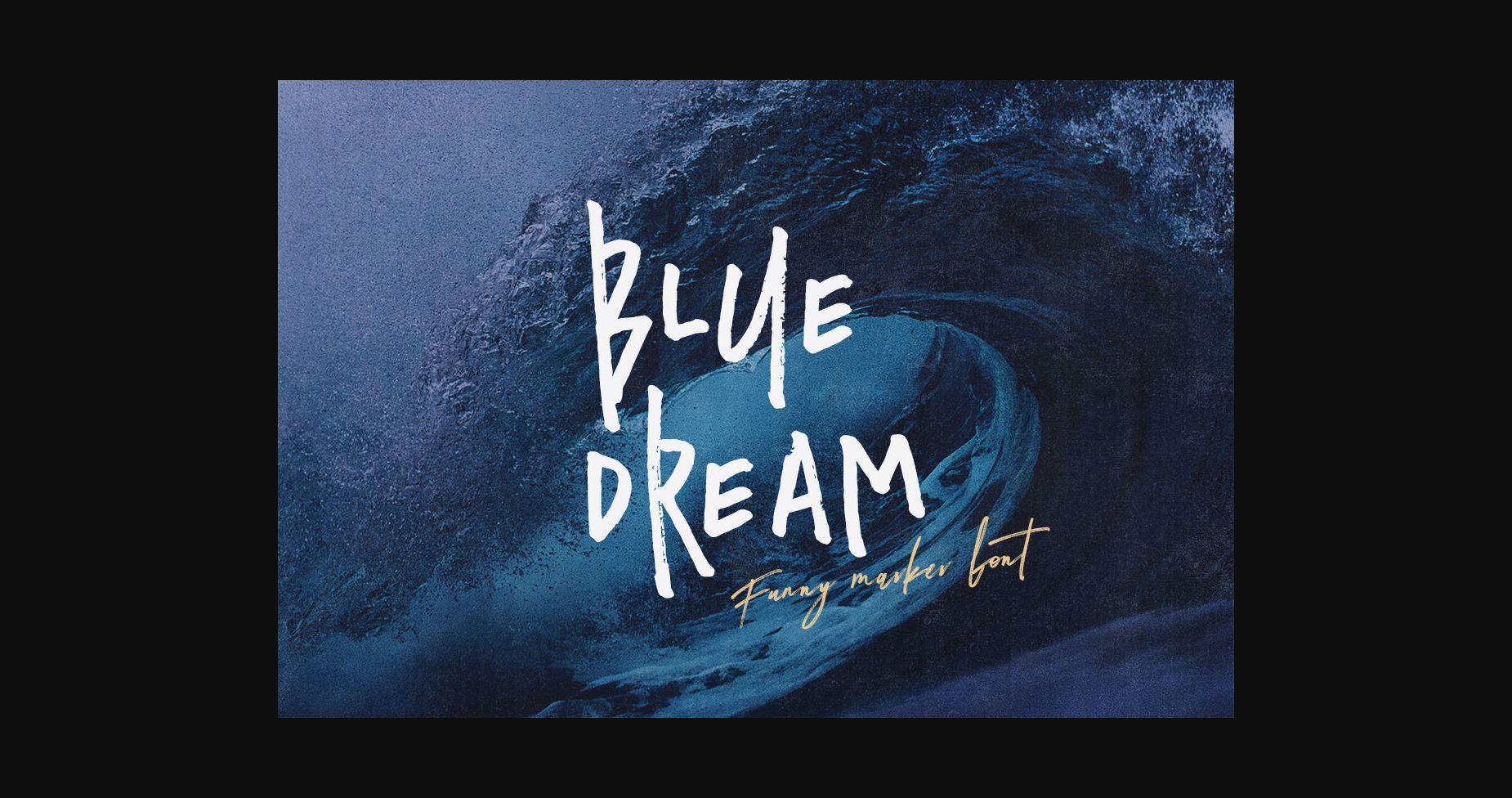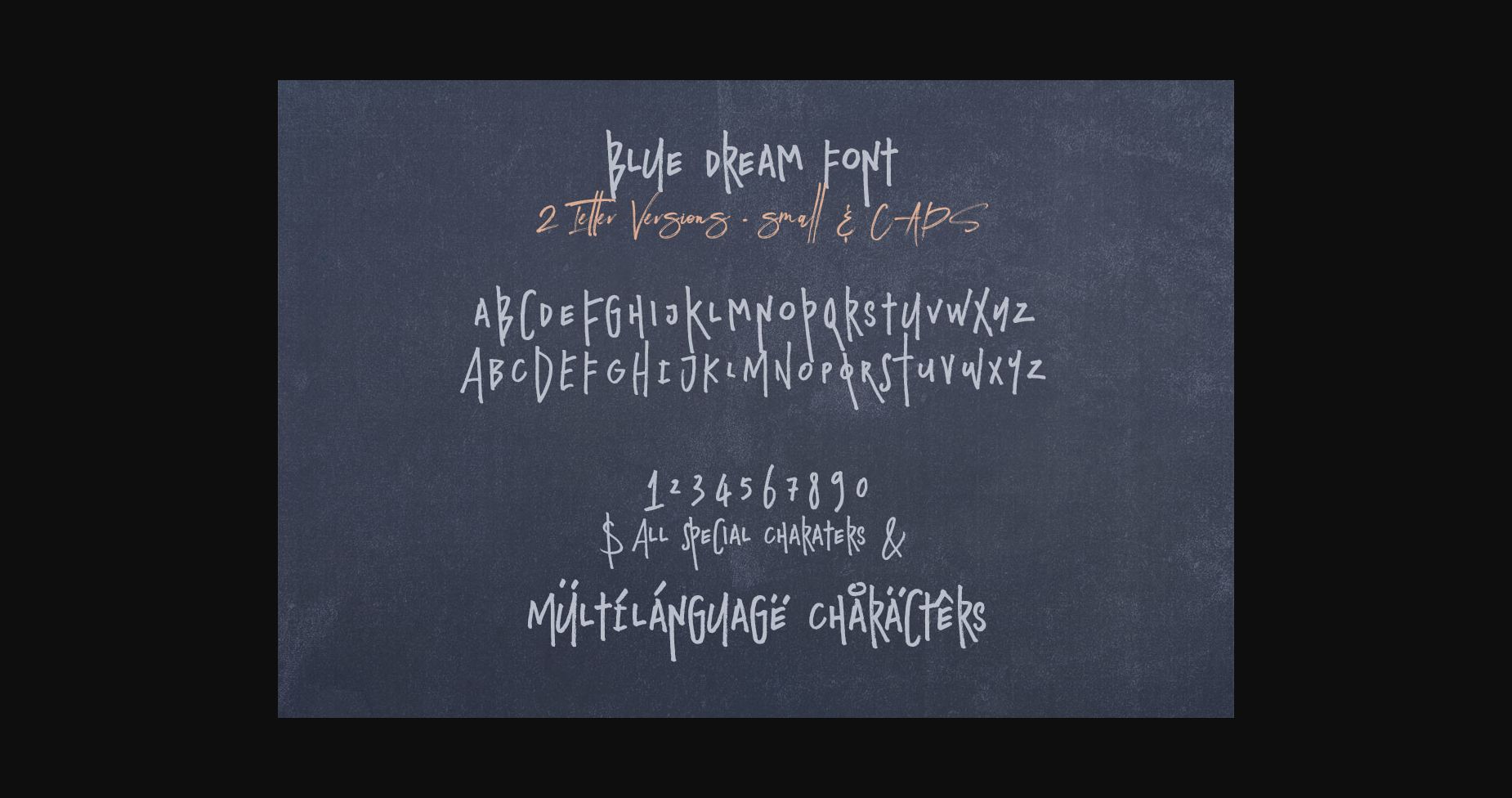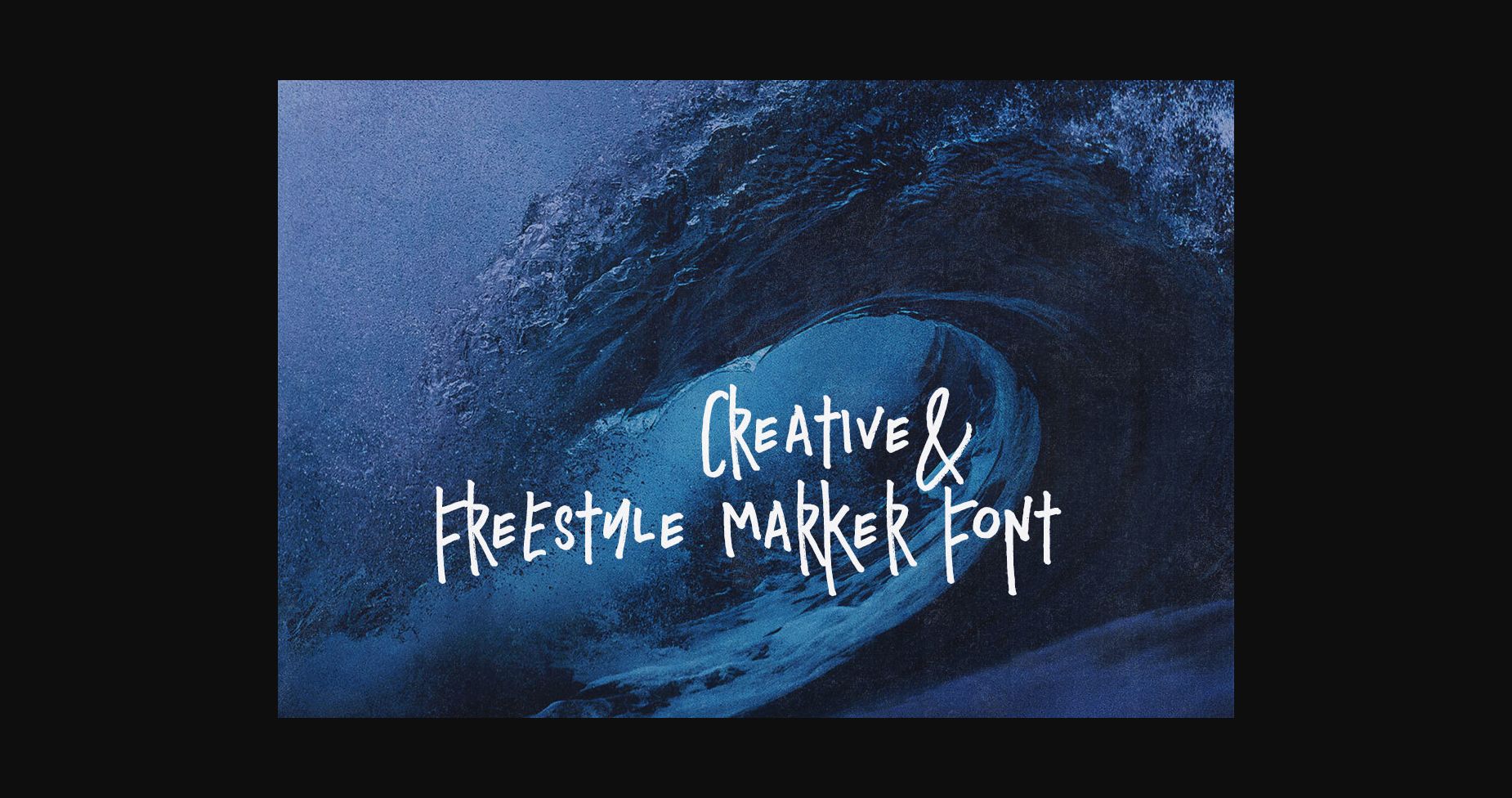
About Blue Dream Font
Blue Dream is a fun and funky sans display font perfect for your new projects. Great for grunge or artistic designs that will instantly enhance!